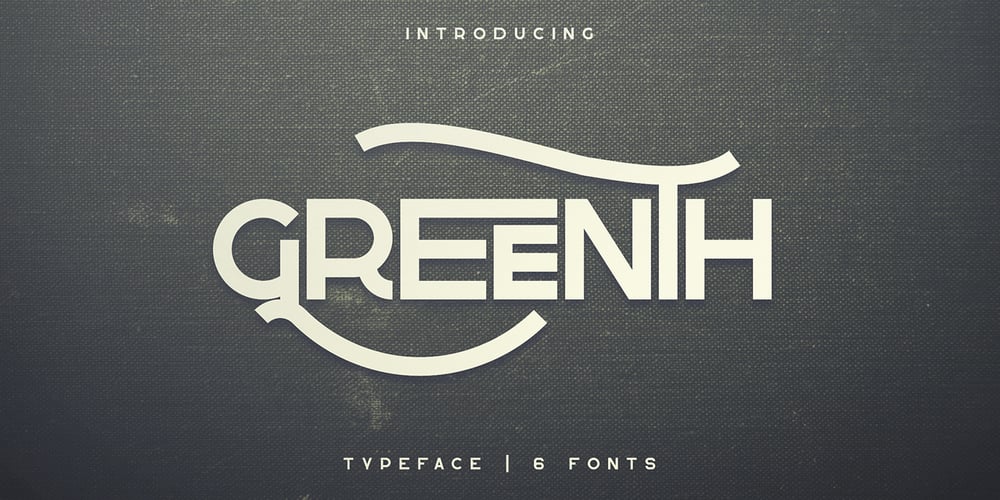
Greenth Font Family was designed by Vladimir Fedotov, Plamen Petrov and published by VP Creative Shop. Greenth contains 2 styles and family package options. Greenth is vintage, bold typeface with latin and Cyrillic support. Every font contains 1221 glyphs, tons of alternate glyphs, ligatures and multilingual support. It’s a very versatile font that works great in large and small sizes. Greenth is perfect for branding projects, home-ware designs, product packaging, magazine headers – or simply as a stylish text overlay to any background image. Uppercase, numeral, punctuation and Symbol Each font contains 1221 glyphs Alternate glyphs Ligatures Cyrillic support – Russian, Ukrainian, Bulgarian and more Multilingual support – Afrikaans, Albanian, Bulgarian, Danish, Dutch, English, Estonian, Finnish, French, German, Icelandic, Italian, Norwegian, Portugese, Russian, Spanish, Swedish, Zulu To access alternate glyphs in Adobe InDesign or Illustrator, choose Window Type & Tables Glyphs In Photoshop, choose Window Glyphs. In the panel that opens, click the Show menu and choose Alternates for Selection. Double-click an alternate’s thumbnail to swap them out. Feel free to contact me if you have any questions! Mock ups and backgrounds used are not included. Thank you! Enjoy!